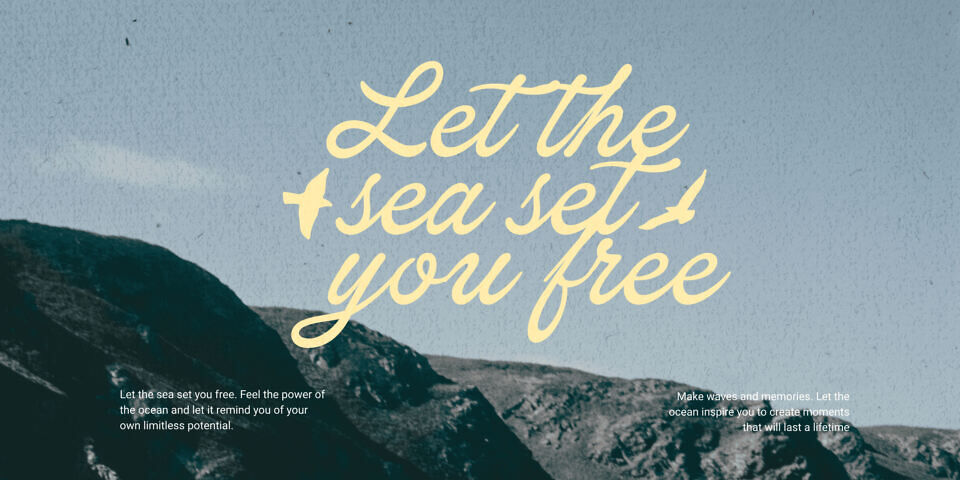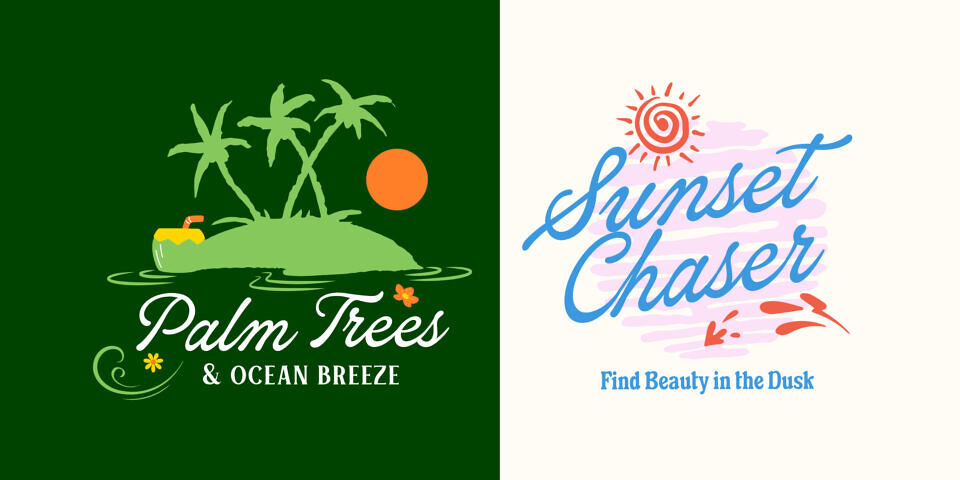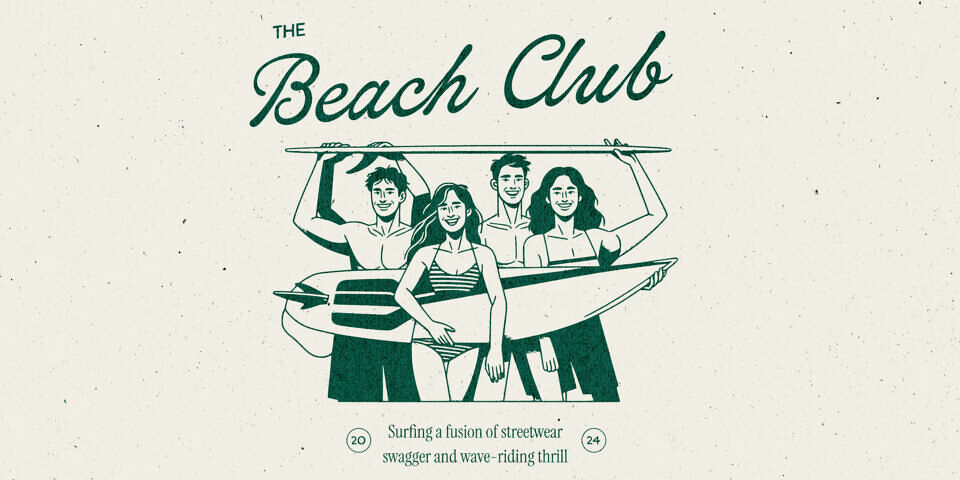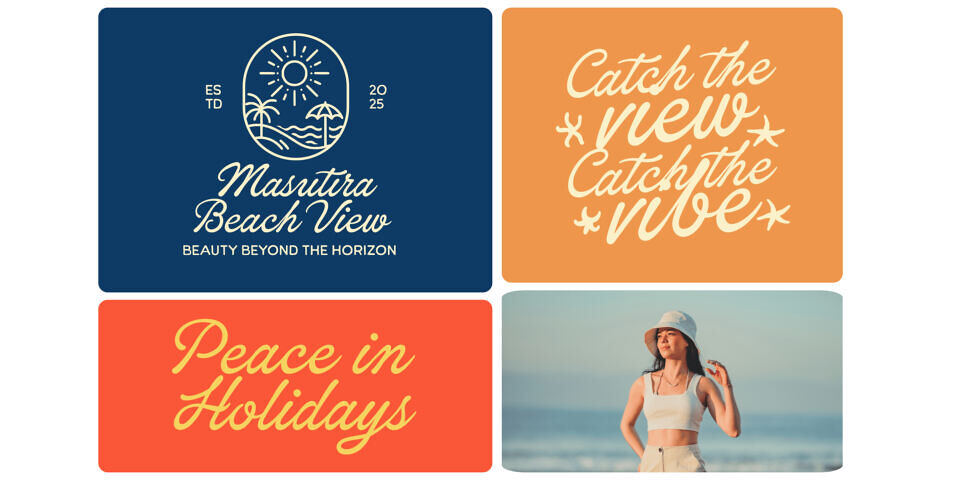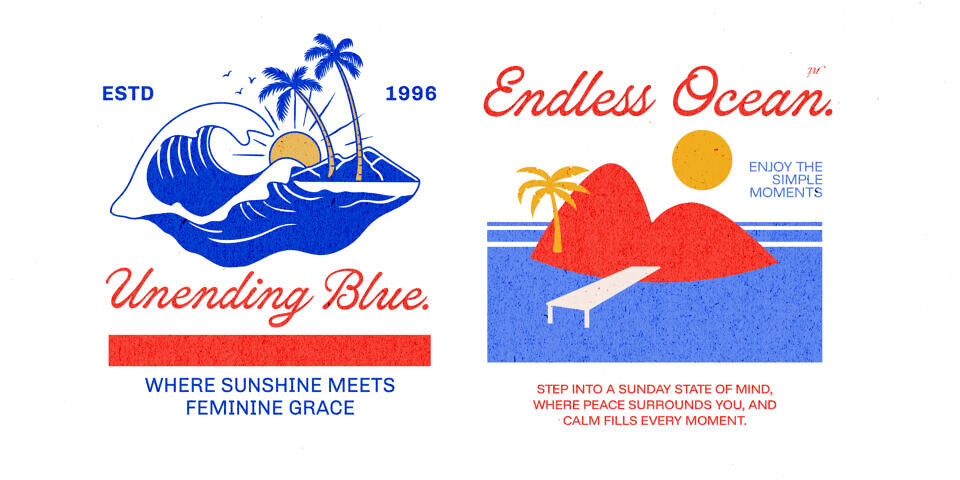
Careera Script Font
Careera Script is a bold and stylish cursive typeface that flows with confidence and purpose. Designed with the charisma of a handwritten signature, it carries the feeling of momentum, like the elegant stroke of a pen racing across paper.
Each letter in Careera Script is drawn with a blend of precision and flair—swirling, looping forms that hold an assured elegance without being overly delicate. Perfectly connected letterforms give it natural rhythm and readability, making it ideal for names, titles or any visual that needs to express distinction with warmth, suggesting a sense of personal identity.